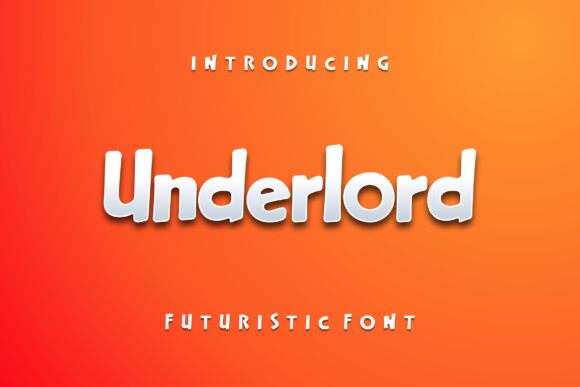
Underlord, a bold and captivating display font crafted by designer Albert Kalingga, exudes a playful, cartoon-inspired aesthetic. This typeface's dynamic letterforms and strong, angular strokes command attention, making it a standout choice for impactful branding, poster designs, or attention-grabbing headlines. The font's unique, undulating curves and distinct, ink-like appearance lend it a sense of energy and personality, making it an excellent pick for projects seeking a visually striking, yet approachable typographic treatment.
Underlord's confident and assertive personality makes it an adaptable choice for a variety of applications. From energetic logo designs to eye-catching event promotions, this font's bold presence can effectively grab the viewer's attention and elevate the visual impact of any project. Its versatility also extends to package design, editorial layouts, and even digital interfaces, where its distinctive style can help create a memorable and engaging user experience.